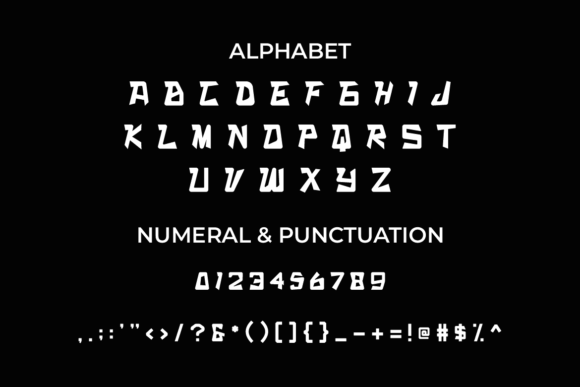
Introduction to Qazahne Font Font
Fonts play a crucial role in design, and the Qazahne Font font is a typeface that brings both character and versatility to any project. Whether you’re working on a branding project, a website, or a print design, the Qazahne Font font offers a unique style that can elevate your work.
Qazahne is a fun and quirky display font.
Key Features of Qazahne Font Font
Why Choose Qazahne Font Font?
The Qazahne Font font is more than just a typeface – it’s a design tool that helps you communicate your message with style and clarity. Its unique character set and versatile design make it suitable for a wide range of applications, from elegant invitations to bold headlines.
With its carefully crafted letterforms and balanced proportions, the Qazahne Font font ensures readability and visual appeal across all mediums.
What makes Qazahne Font font special?
The Qazahne Font font stands out with its unique design, exceptional readability, and versatility across various design applications.